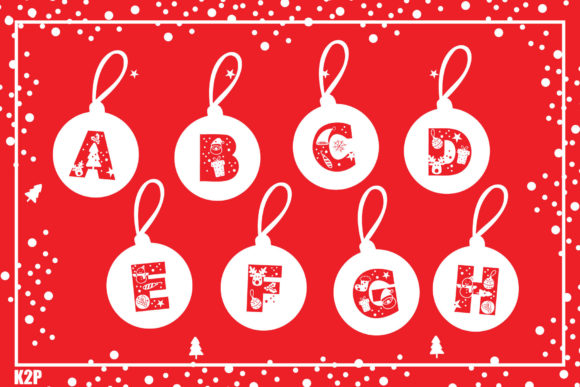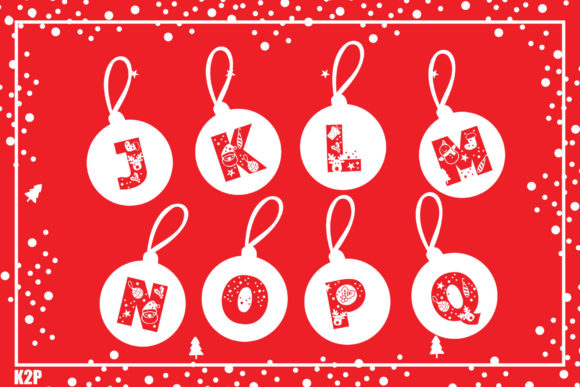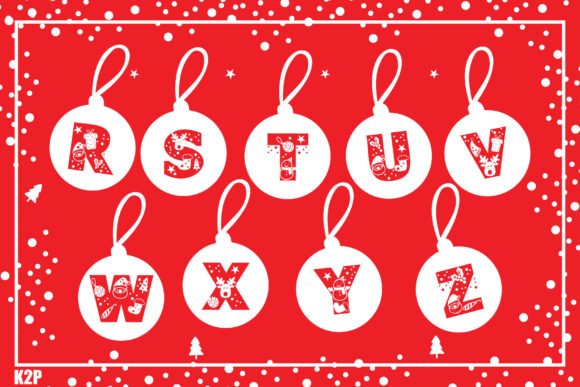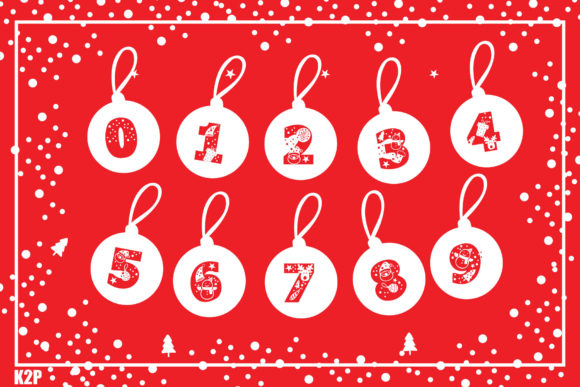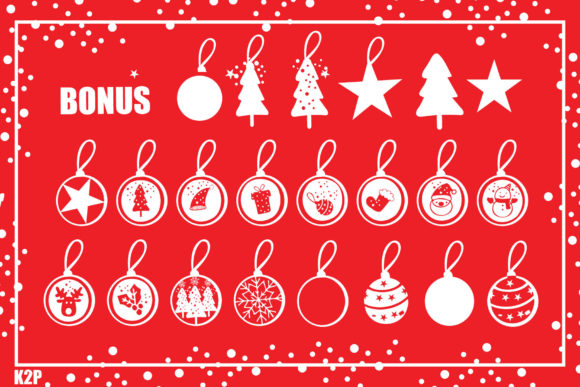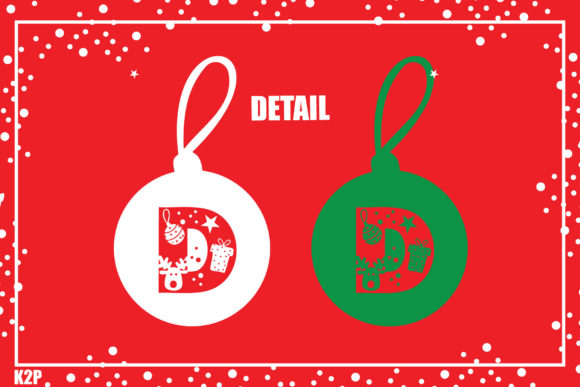
Introducing Decor Ball Font: The Ultimate Christmas Decorative Font
Are you looking for a unique and eye-catching font to elevate your Christmas designs? Look no further than Decor Ball Font! This thick lettered and incredibly unique decorative font is perfect for adding a touch of festive flair to your projects. In this article, we’ll dive into the features and benefits of Decor Ball Font, and explore how you can use it to create stunning designs for the holiday season.
What is Decor Ball Font?
Decor Ball Font is a decorative font designed specifically for use in holiday-themed designs. Its thick, bold letters are reminiscent of oversized Christmas ornaments, making it the perfect choice for creating festive and fun designs. The font’s unique style is sure to grab attention and add a touch of whimsy to any project.
Key Features of Decor Ball Font
- Thick and Bold Letters: Decor Ball Font features thick, bold letters that are perfect for creating eye-catching designs.
- Unique Ornament-Inspired Style: The font’s ornament-inspired style makes it perfect for Christmas and holiday-themed designs.
- Highly Versatile: Decor Ball Font can be used for a wide range of design projects, from greeting cards and invitations to posters and social media graphics.
- Easily Customizable: The font is easily customizable, allowing you to adjust the size, color, and style to fit your design needs.
Design Ideas Using Decor Ball Font
Decor Ball Font is incredibly versatile and can be used for a wide range of design projects. Here are a few ideas to get you started:
- Christmas Cards and Invitations: Use Decor Ball Font to create festive and fun Christmas cards and invitations.
- Holiday Posters and Flyers: Create eye-catching posters and flyers using Decor Ball Font to promote your holiday events or sales.
- Social Media Graphics: Use Decor Ball Font to create festive social media graphics, such as Facebook posts and Instagram stories.
- Crafting and DIY Projects: Decor Ball Font is perfect for crafters and DIY enthusiasts who want to add a personal touch to their projects.
Tips for Using Decor Ball Font
Here are a few tips for using Decor Ball Font in your designs:
- Use it Sparingly: While Decor Ball Font is eye-catching, it can be overwhelming if used too much. Use it sparingly to add a touch of festive flair to your designs.
- Experiment with Colors: Decor Ball Font looks great in bold, bright colors. Experiment with different colors to find the perfect combination for your design.
- Pair it with Other Fonts: Decor Ball Font pairs well with other fonts, such as sans-serif fonts. Experiment with different font combinations to find the perfect look for your design.
Decor Ball Font is a unique and versatile decorative font that’s perfect for adding a touch of festive flair to your Christmas designs. With its thick, bold letters and ornament-inspired style, it’s sure to grab attention and add a touch of whimsy to any project. Whether you’re a designer, crafter, or DIY enthusiast, Decor Ball Font is a must-have for your holiday design projects.